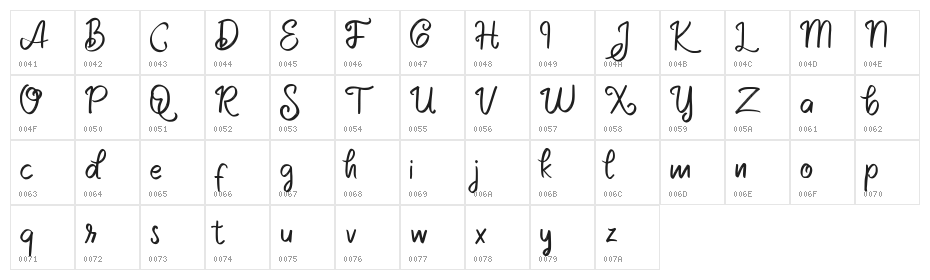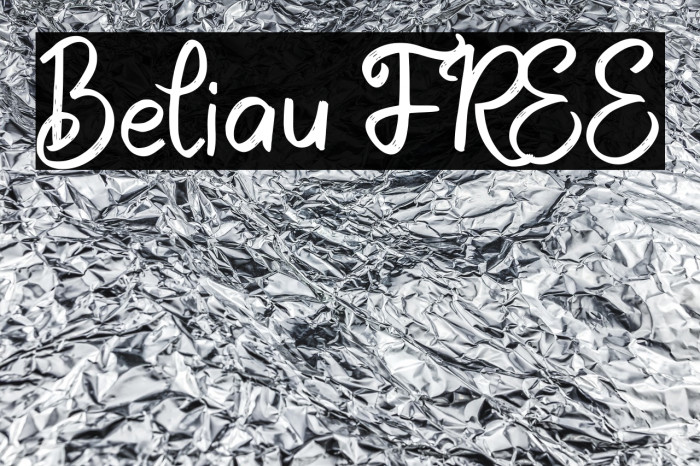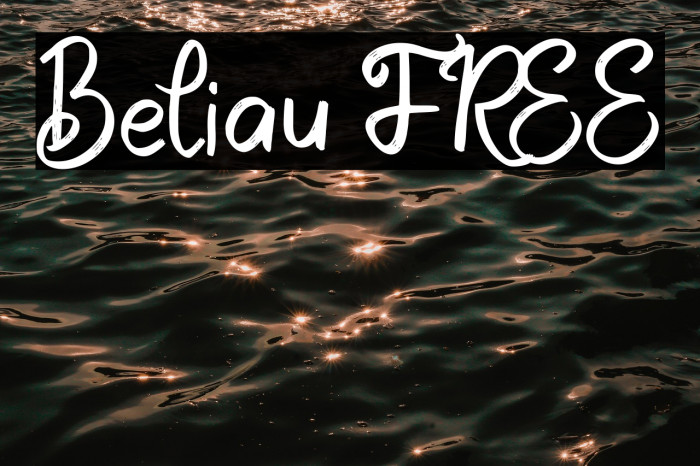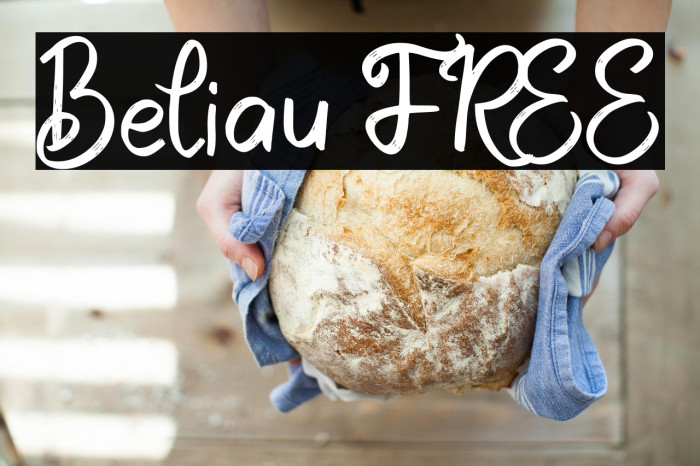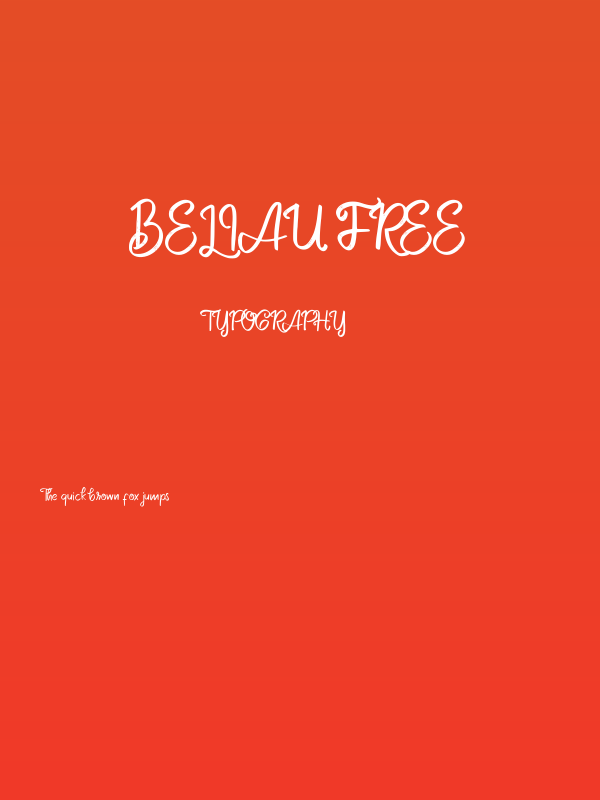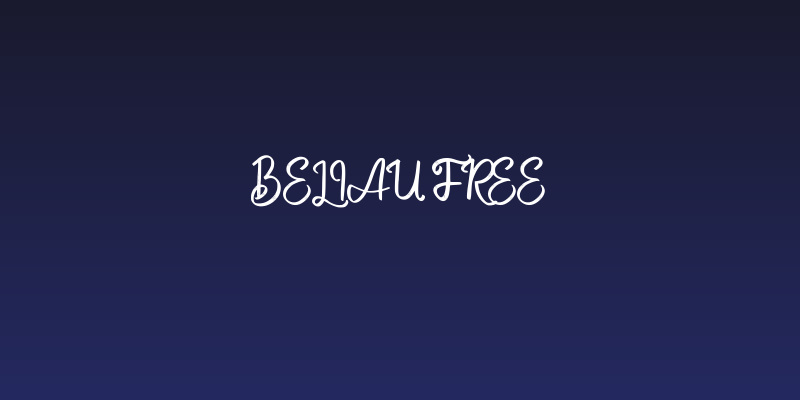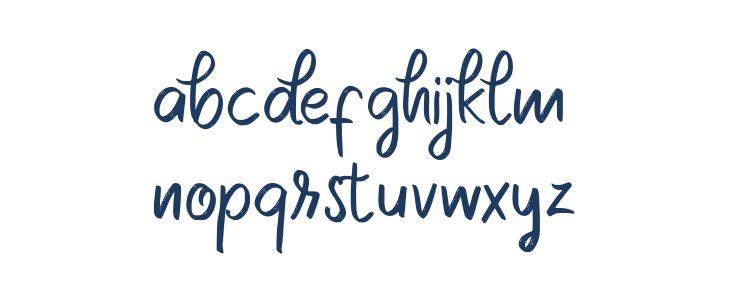
Beliau FREE Font
Beliau FREE Description
This font features a playful and artistic script style with a handwritten appearance. The letters are characterized by their flowing, cursive forms and decorative swashes, giving it a whimsical and creative feel. The uppercase letters are bold and expressive, while the lowercase letters maintain a consistent fluidity. The font includes a full set of uppercase and lowercase letters, numbers, and a selection of special characters. Its unique style makes it ideal for projects that require a personal touch or a sense of elegance and creativity.